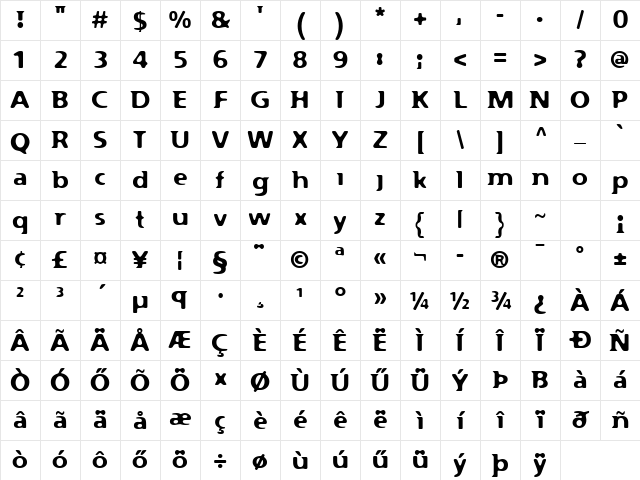
Complete Flexure Hu Normal glyph index. Displaying only characters natively supported by Flexure Hu Normal font.
Flexure Hu is a composed and adaptable typeface that performs quietly and consistently across a wide range of design contexts.